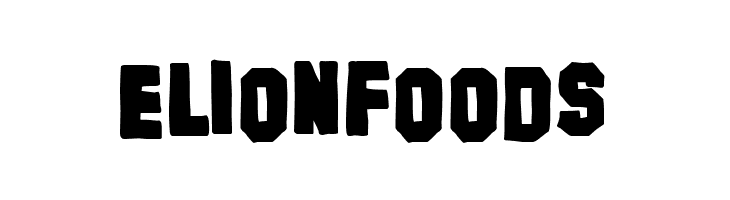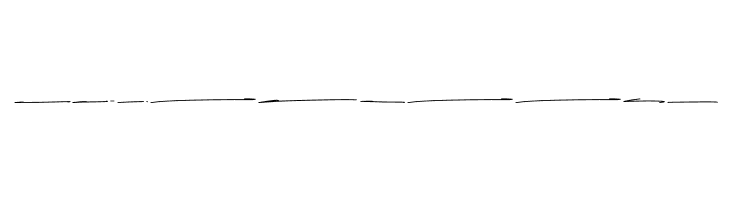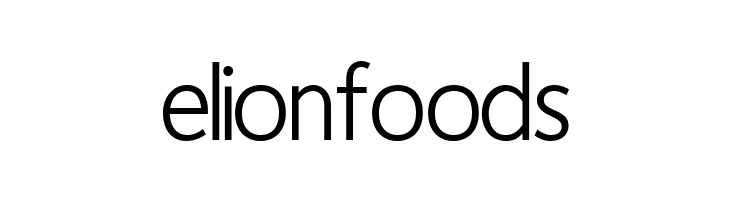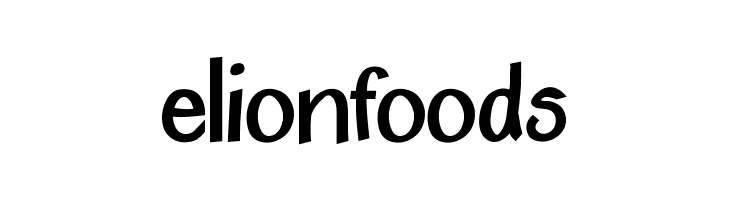
• Holimount
A cursive, handwritten font with elegant, flowing lines.
• Holimount swash
A whimsical, swash-style font with fluid, interconnected strokes.
• Hollow Hills
• Hollyweed
A bold, blocky font with a playful, rebellious edge and hand-cut appearance.
• Holy Christmas Tree
A modern, elegant script font with flowing, cursive characters.
• HolyScriptacular
An artistic script font with flowing, calligraphic strokes and dramatic flair.
• Home & Hearth
A playful, handwritten-style font with bold, rounded strokes.
• Home&Hearth-OutlineBold
A playful, bold outline font with a hand-drawn aesthetic.
• Homeville
A bold, flowing script font with smooth, rounded edges and a slight slant.
• Homizio Nova